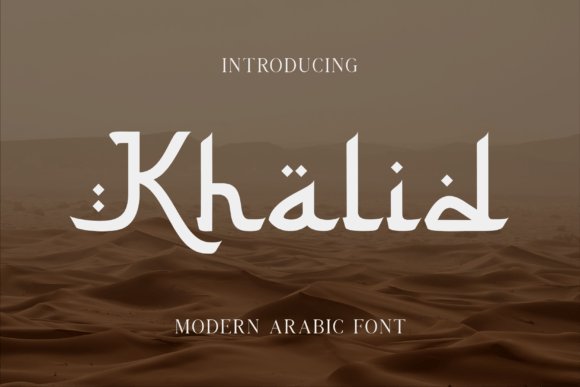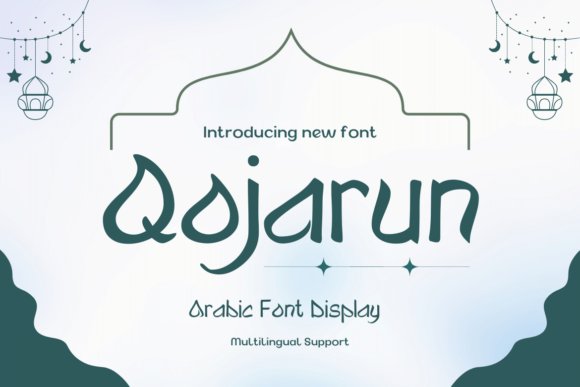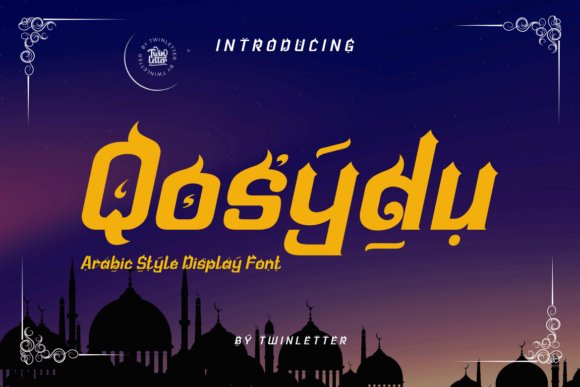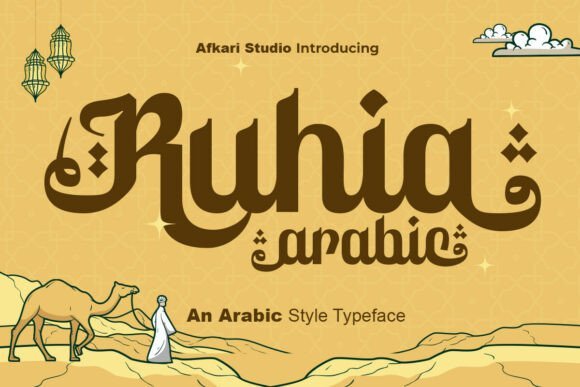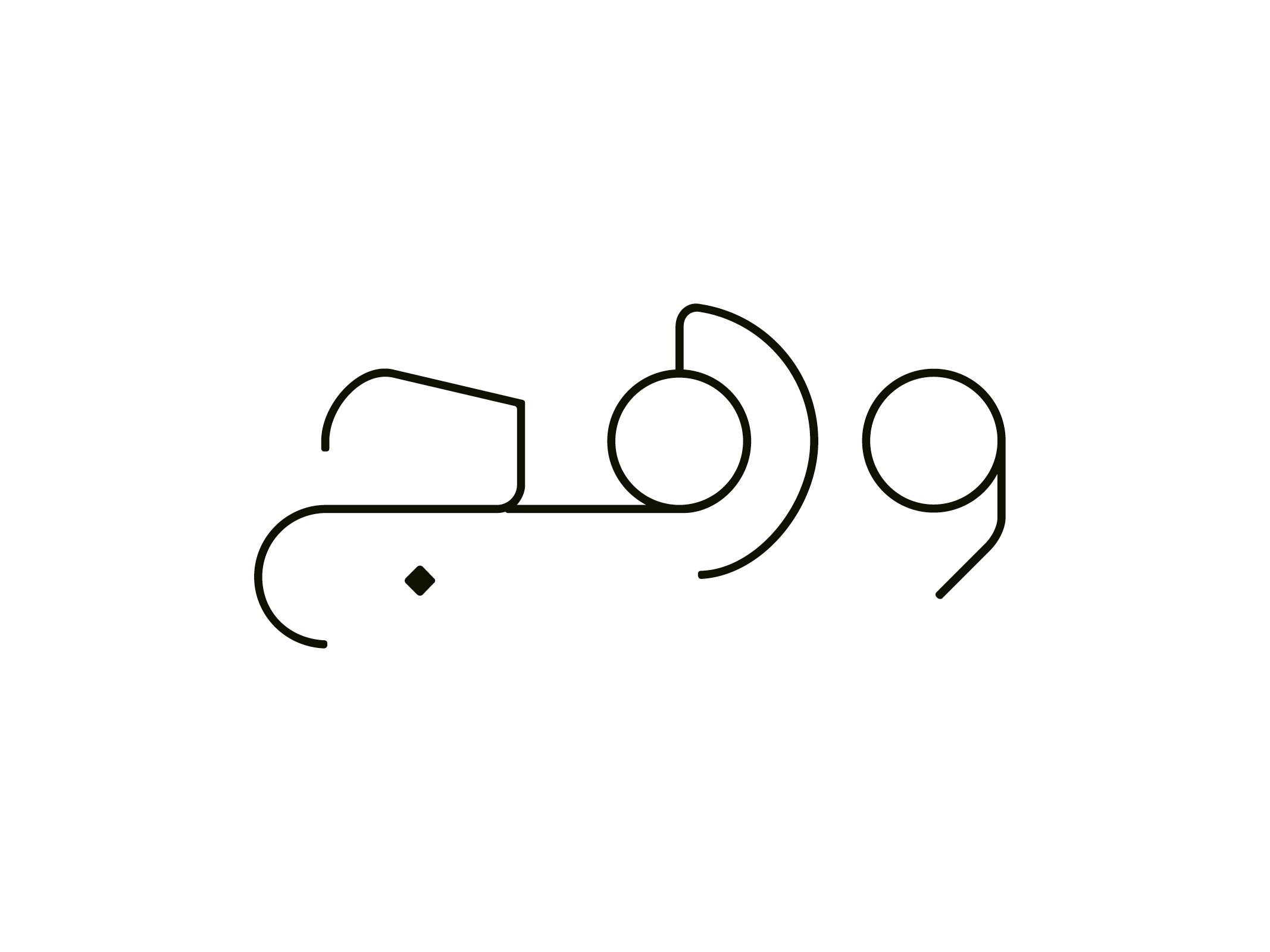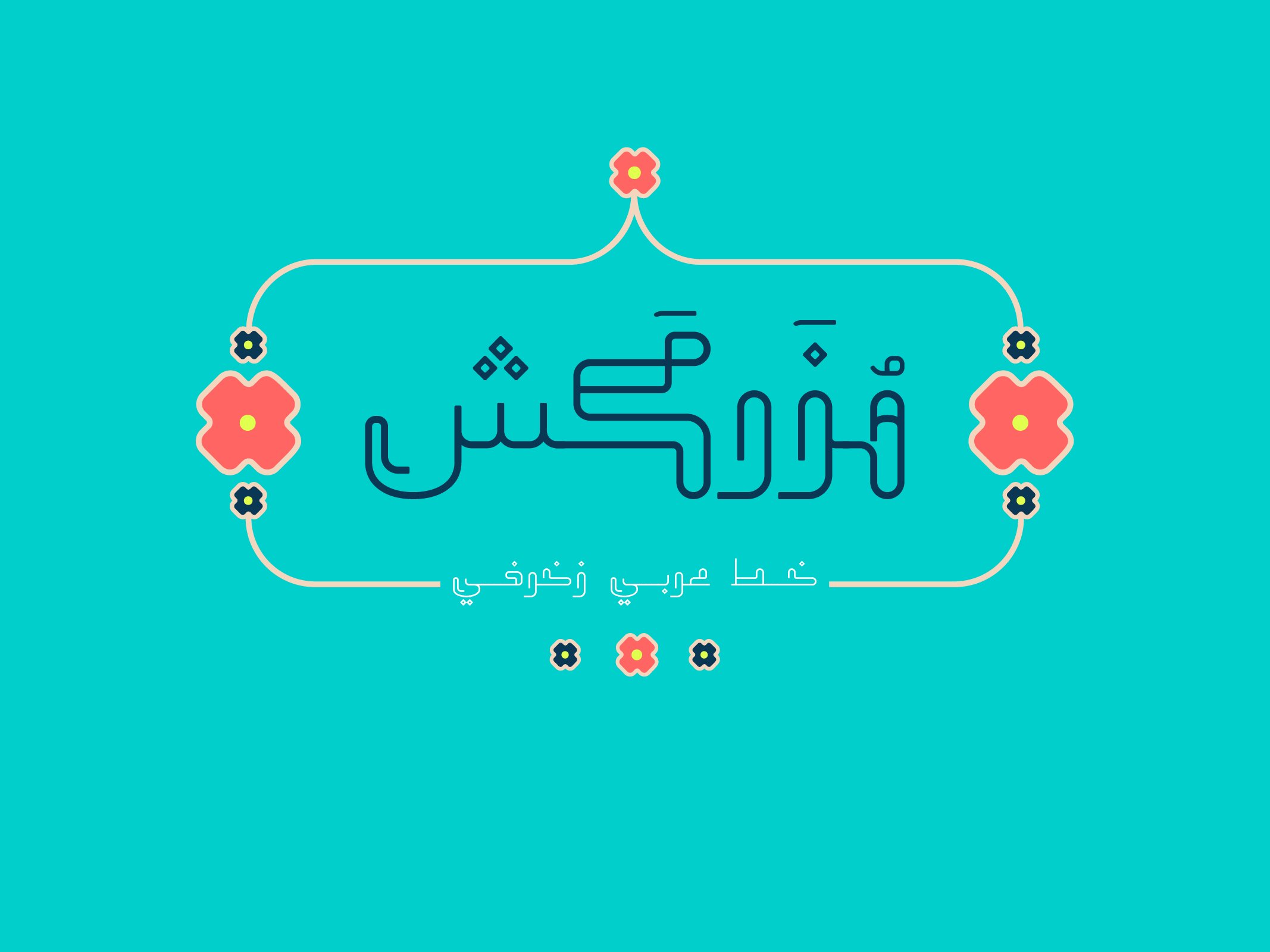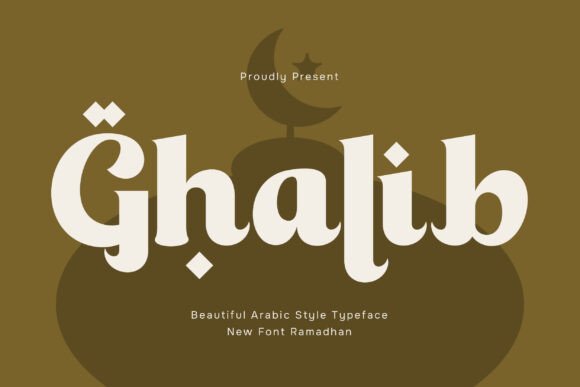
36 Professional Arabic Fonts for Your Design Projects in 2026
Finding the right typography for bilingual or regional projects often feels like a challenge, but our list of 36 arabic fonts simplifies the process. In 2026, designers need more than just standard characters; they need typefaces that respect the rich heritage of calligraphic traditions while fitting modern digital interfaces. This selection covers a wide range of styles, from minimal sans-serifs to intricate Naskh and Thuluth scripts, giving you the tools to build beautiful visual identities. These arabic fonts are perfect for social media, print advertising, and corporate branding.
1. Khalid Font
Khalid Font strikes a masterful balance between the ancient art of calligraphy and the requirements of 21st-century interface design. By stripping away some of the more ornate classical flourishes and replacing them with clean, geometric lines, this typeface achieves a sophisticated aesthetic that works beautifully across high-resolution screens and luxury print materials alike. It is one of the more versatile arabic fonts available for designers who need to bridge the gap between cultural heritage and modern minimalism.
What truly distinguishes this set is the inclusion of specialized alternates and ligatures, allowing for a bespoke typographic experience that mimics the organic flow of hand-inked script. I find it particularly effective for high-end boutique branding or editorial headers where you want to evoke a sense of prestige without appearing dated. Its readability remains high even at smaller sizes, making it a robust choice for complex layouts that require a touch of global flair.
2. Qojarun Font
Qojarun Font captures the essence of traditional scribal work while delivering the crispness required for high-impact display usage. The letterforms are characterized by their rhythmic curves and graceful terminals, which instantly transport the viewer to a Middle Eastern context. Unlike more rigid geometric scripts, this typeface maintains a soft, humanistic quality that makes it exceptionally approachable for audiences accustomed to seeing handwritten textures. It stands out in the crowded market of arabic fonts as a tool that prioritizes both atmosphere and legibility.
For projects ranging from cinematic posters to corporate logos, the font provides an undeniable sense of authenticity. The characters are expertly spaced to ensure that even the most complex ligatures do not hinder the reader’s eye, facilitating a seamless flow of information. Whether you are designing for a travel documentary or a specialty food brand, these calligraphic letters provide a visual anchor that feels both ancient and eternally relevant.
3. Qosydu Font
Qosydu Font is defined by its substantial weight and generous character spacing, creating a visual presence that is impossible to ignore. It utilizes bold, thick strokes to command attention, making it an ideal candidate for large-scale environmental graphics or outdoor advertising campaigns. The architectural structure of each glyph reflects a deep understanding of traditional letterforms, yet the execution is firmly rooted in a high-contrast style that feels dramatic and luxurious.
When applied to niche packaging or upscale event invitations, the font transforms simple text into a decorative element in its own right. The extended tracking options allow for a breathable layout that emphasizes the exotic nature of the design without sacrificing clarity. I suggest utilizing this typeface when your goal is to create a sense of opulence and grandeur, as its heavy-set nature naturally conveys a message of stability and premium quality.
4. Ruhia Arabic Font
Ruhia Arabic is a masterful fusion of classical Middle Eastern calligraphy and contemporary display mechanics. Unlike traditional scripts that can sometimes feel rigid in digital layouts, this typeface utilizes flowing curves and rhythmic strokes to emulate the organic motion of hand-drawn ink. The sharp terminals and expressive personality make it an exceptional choice for projects that require a sophisticated, cultural aesthetic without sacrificing the legibility expected in modern graphic design.
This typeface excels in high-end branding environments, particularly for luxury packaging, travel promotions, and Islamic-themed event visuals. Because it is PUA encoded and includes extensive multilingual support, designers can easily access special alternates to create custom-feeling headlines. Whether you are crafting a restaurant menu that needs an exotic flair or a social media campaign for Ramadan, the balanced weight and intricate detailing of these letterforms provide a rich, luxurious finish.
Updating your collection with these 36 arabic fonts will ensure your 2026 projects are both legible and culturally resonant. Whether you are looking for a bold headline or a subtle body text, these font families offer the range and quality required for high-end professional work. By choosing the right script, you can bridge the gap between traditional artistry and contemporary design standards.